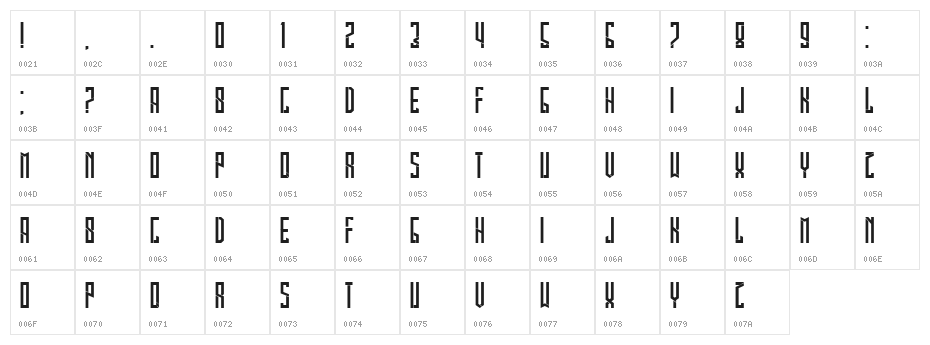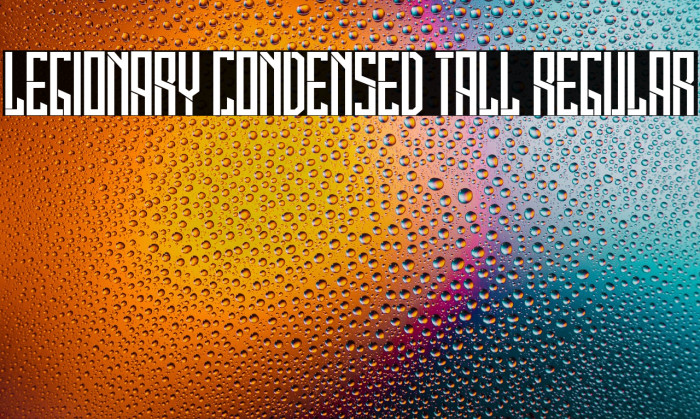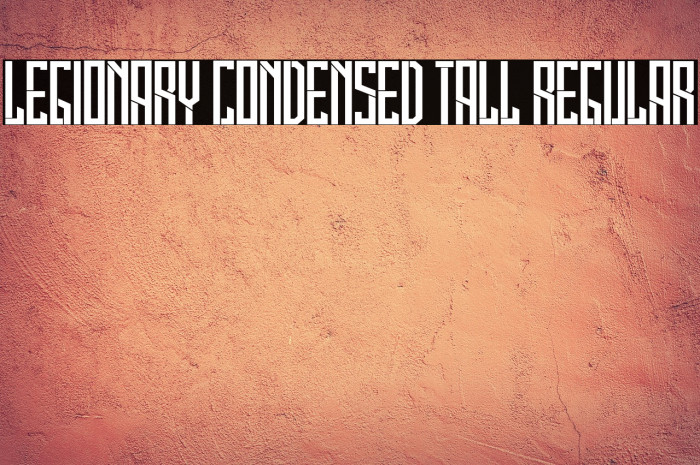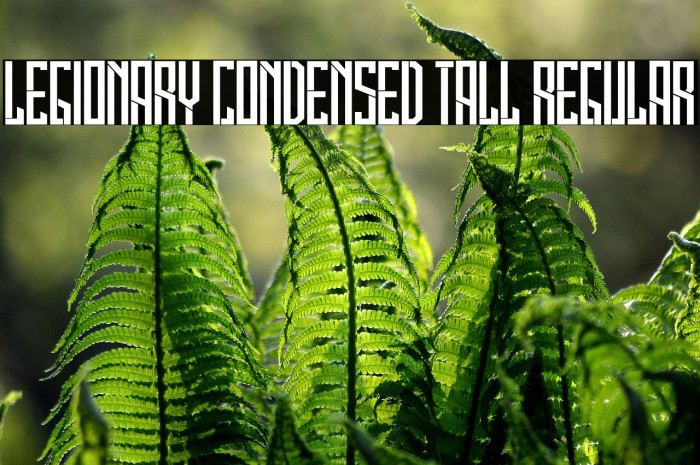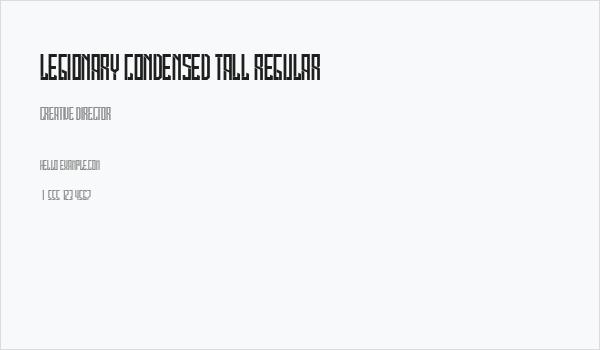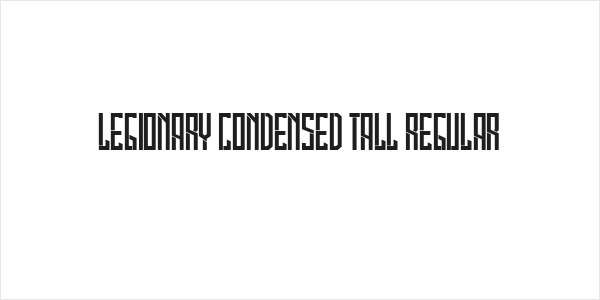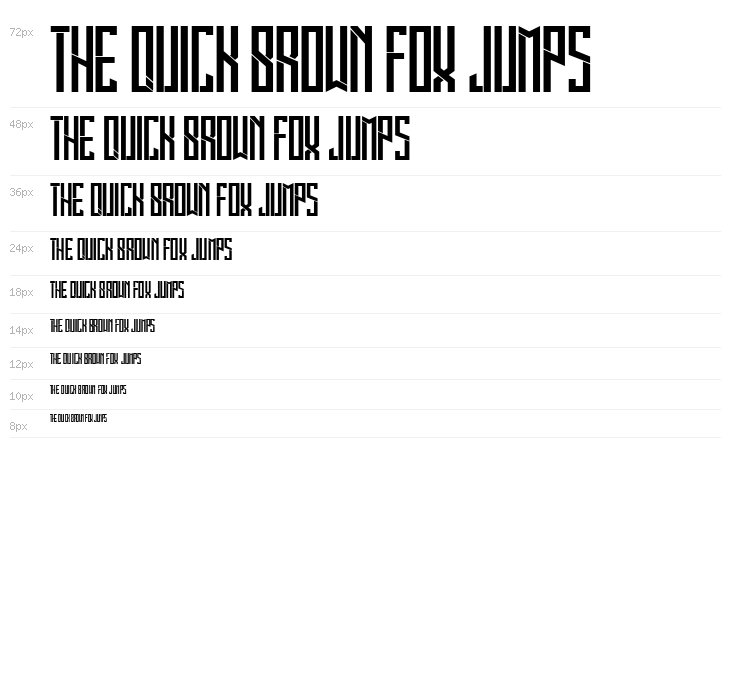
Legionary Condensed Tall Regular Font
Legionary Condensed Tall Regular Description
This font features a distinctively tall and condensed structure, characterized by sharp, angular lines and a geometric aesthetic. The uppercase and lowercase letters maintain a consistent height, creating a uniform appearance. The strokes are bold and consistent, with minimal variation in thickness, giving it a strong and impactful presence. The numerals and special characters follow the same design principles, ensuring a cohesive look across all glyphs. This font's unique style is both modern and futuristic, making it stand out in any design context.
| Proposed Projects | Ideal for futuristic designs, posters, branding, and any project requiring a bold, modern aesthetic. |